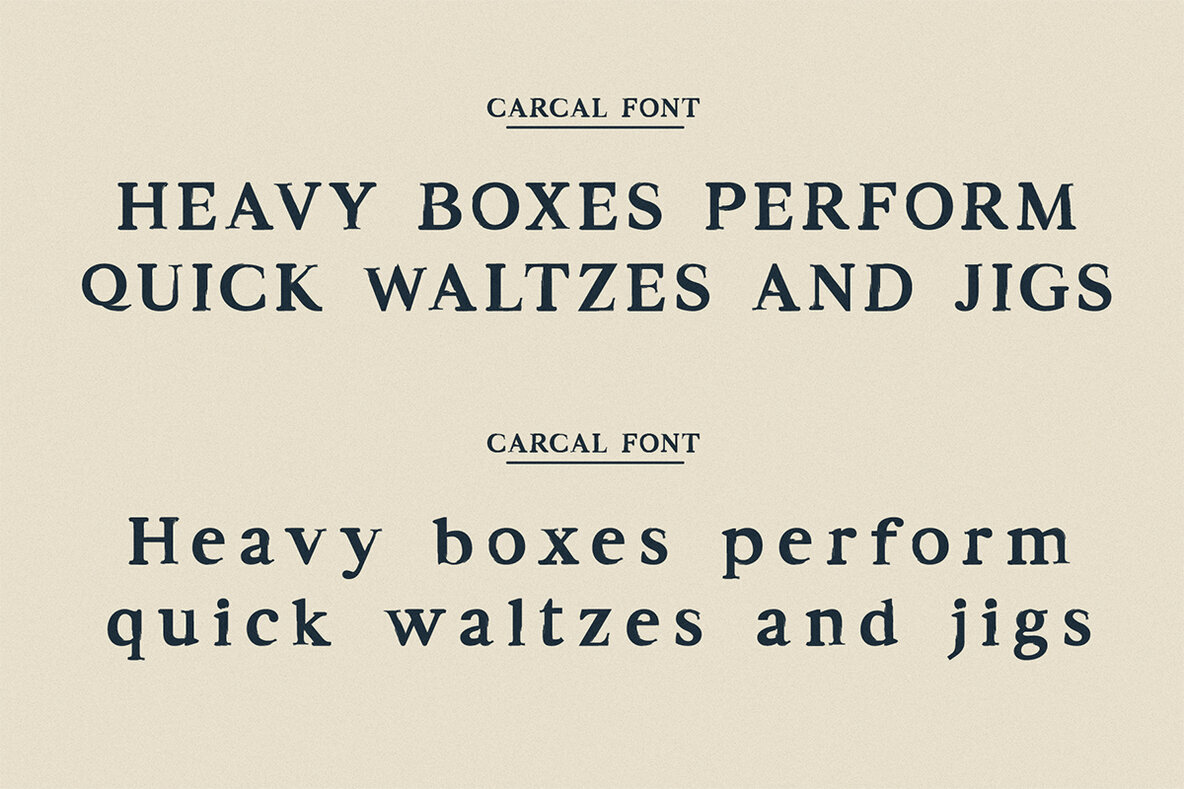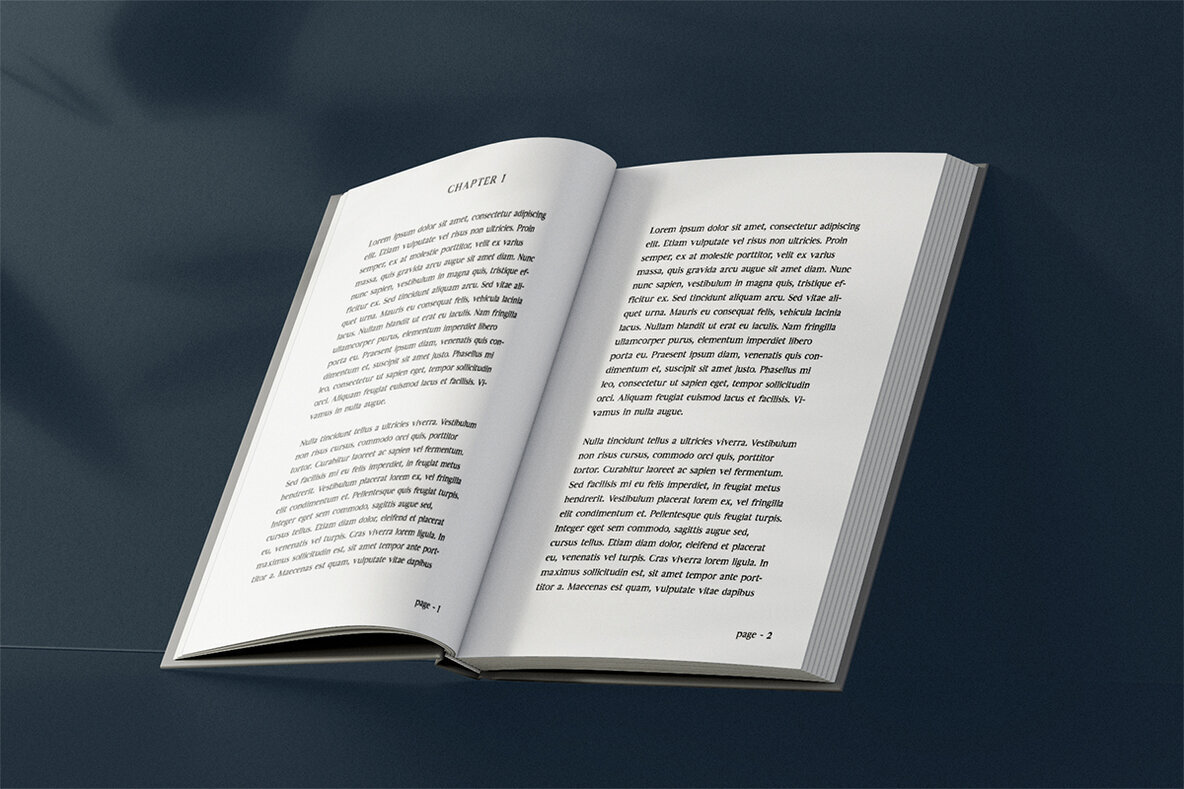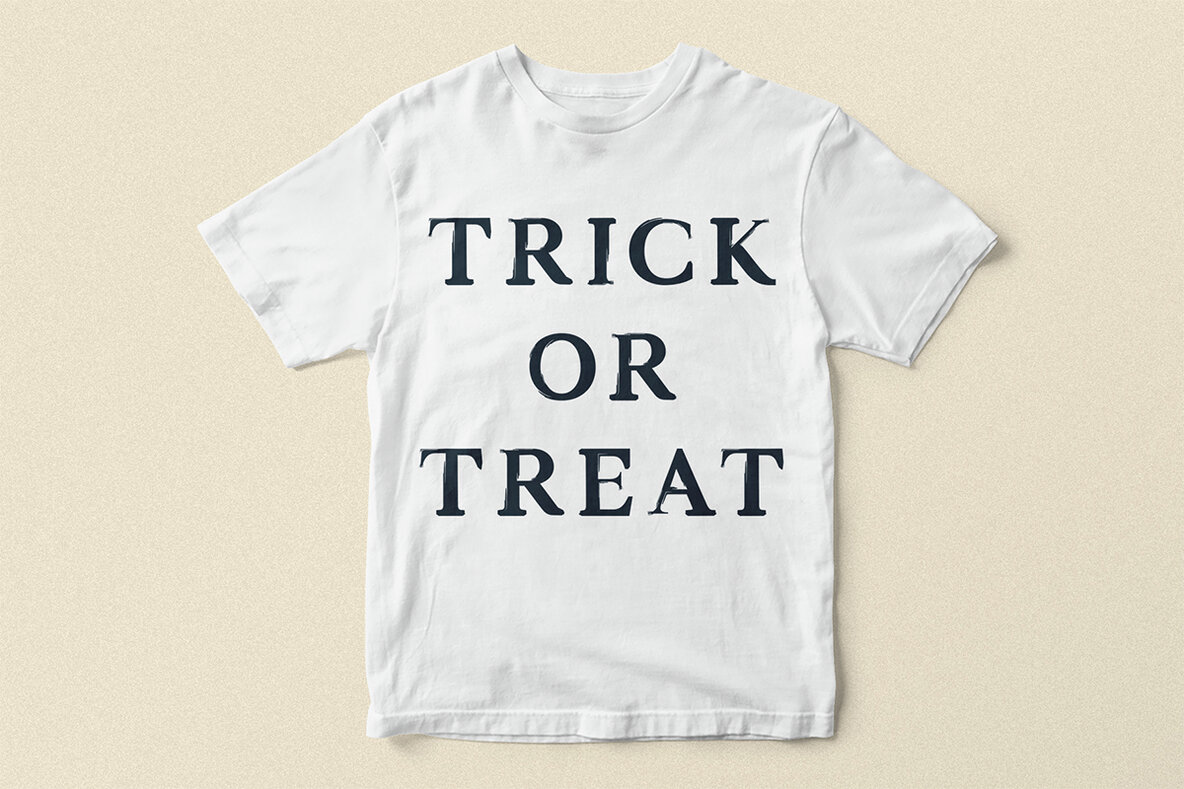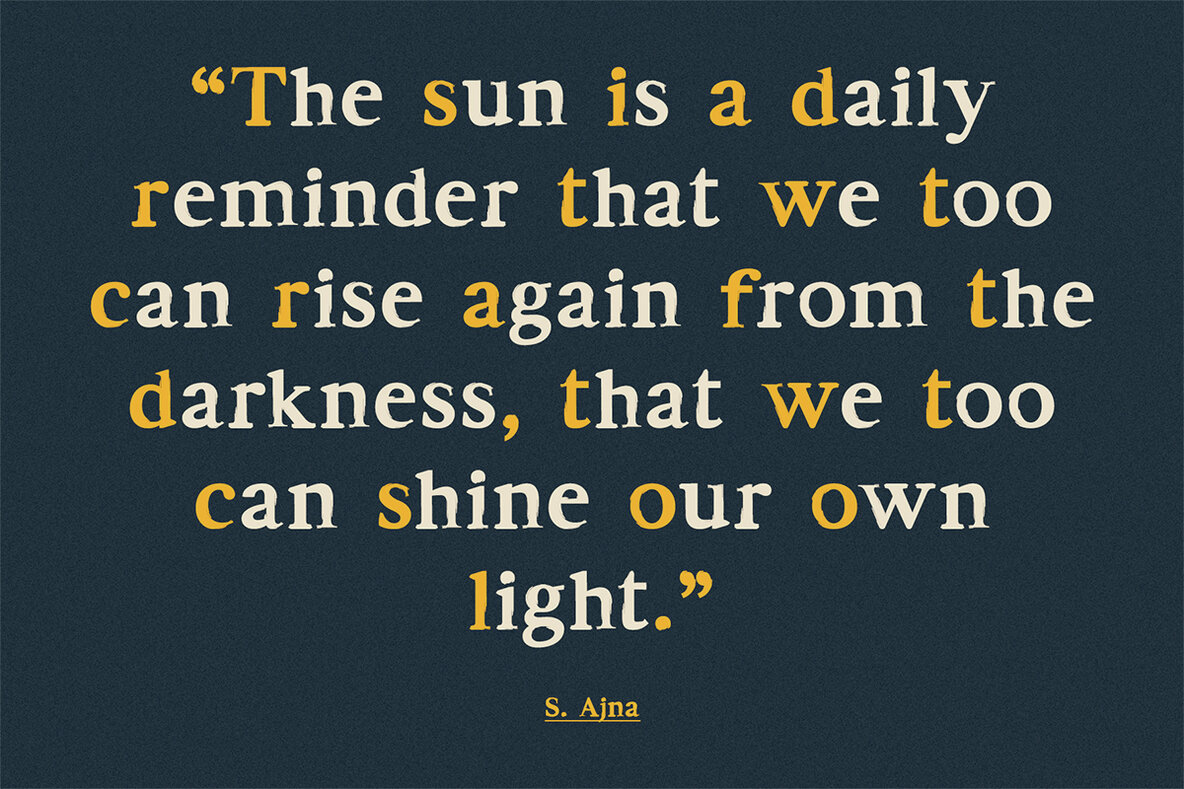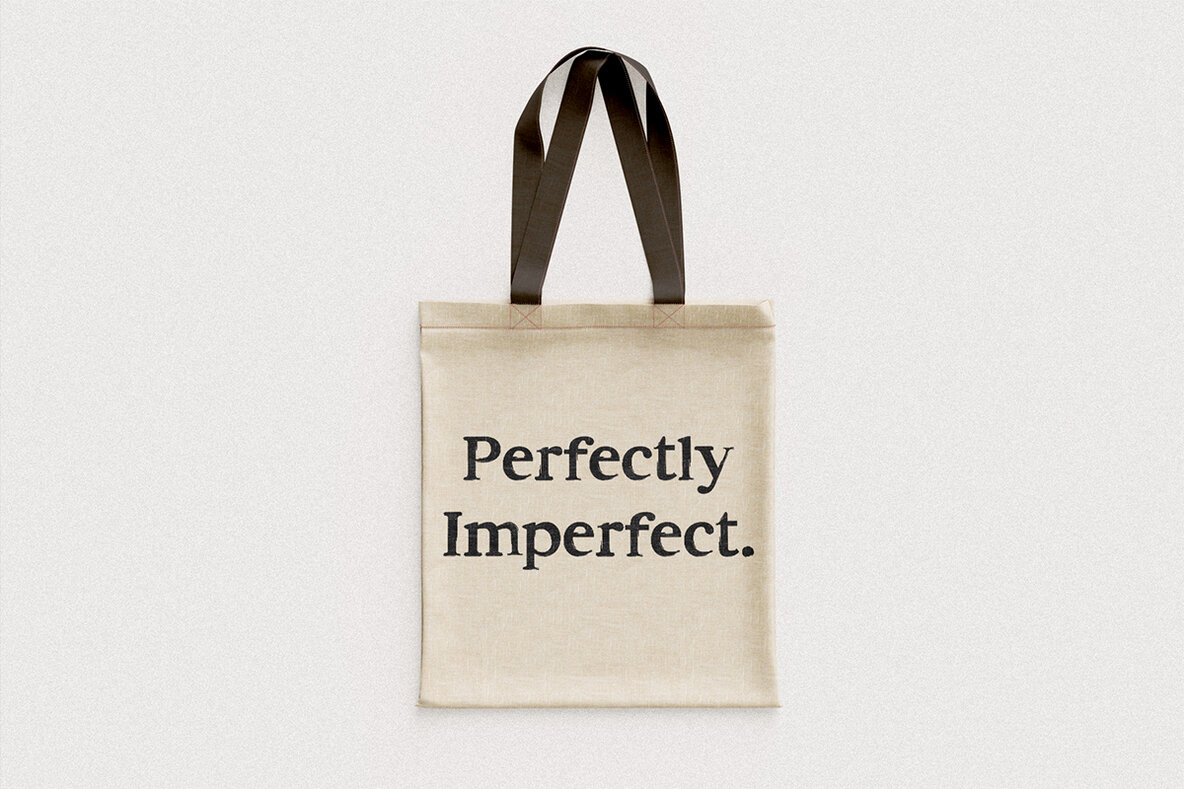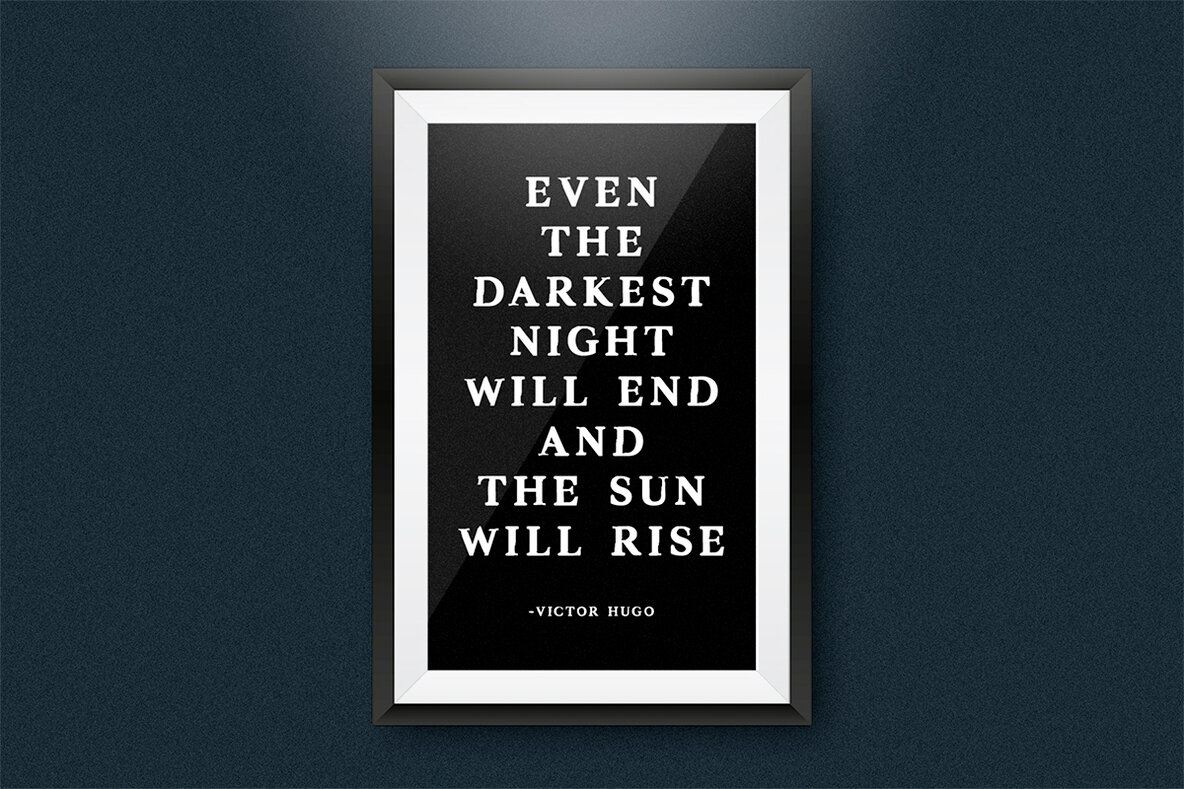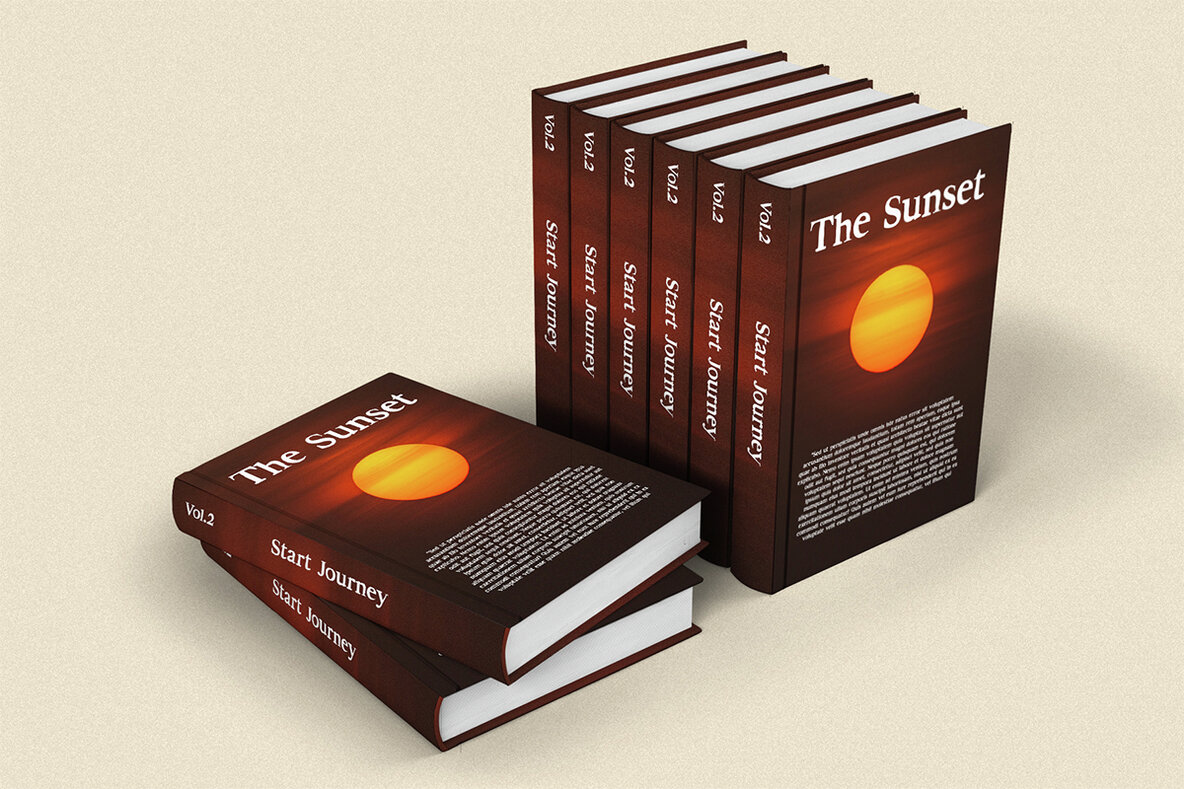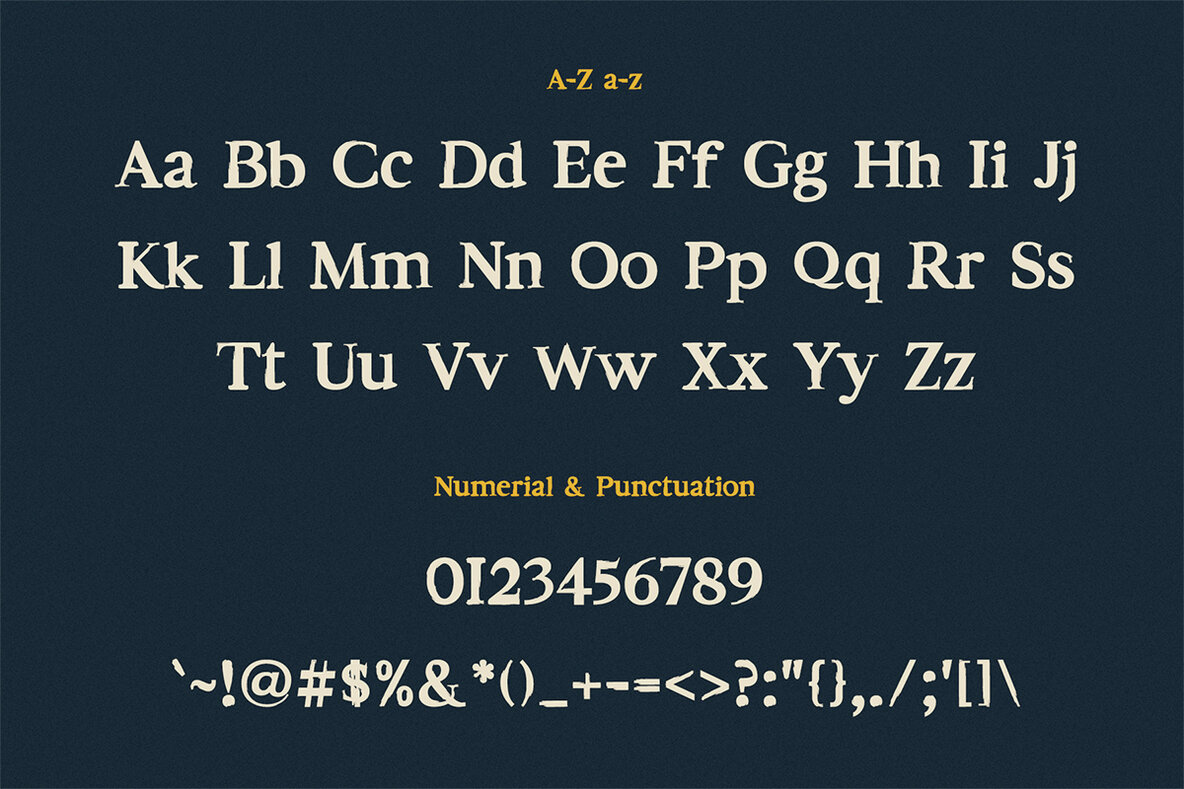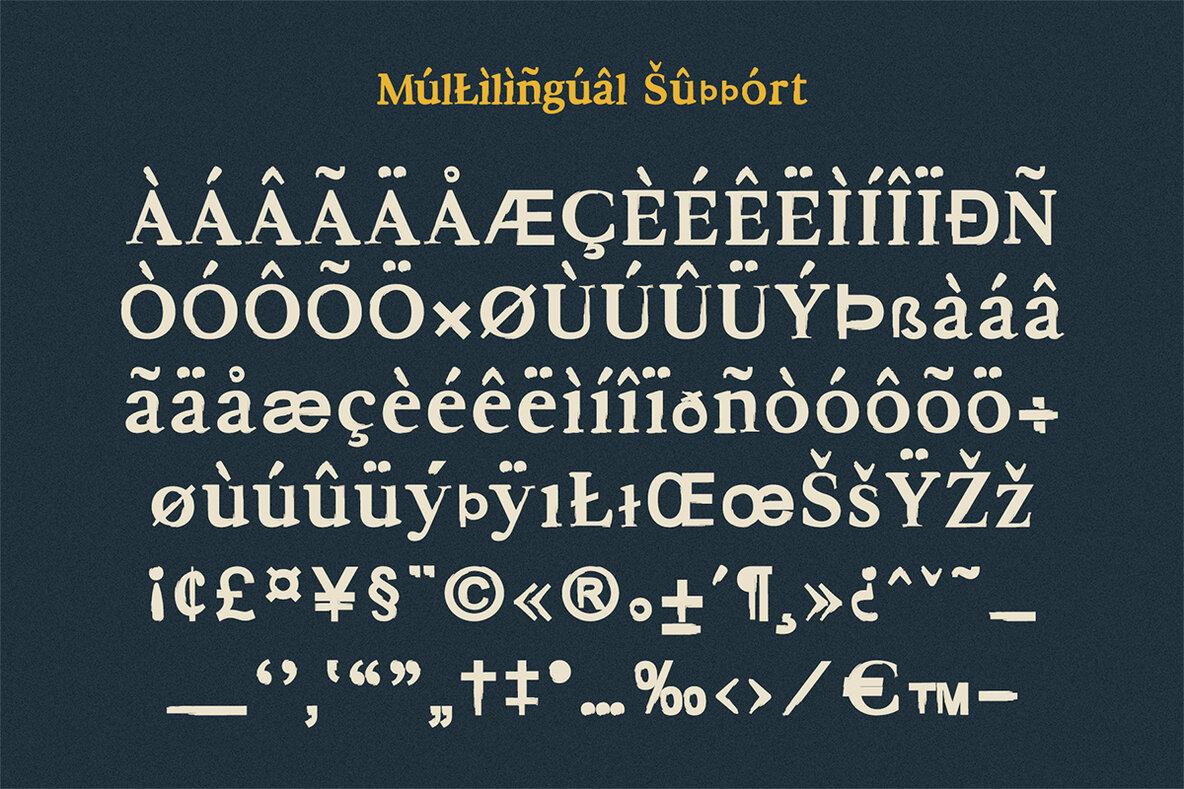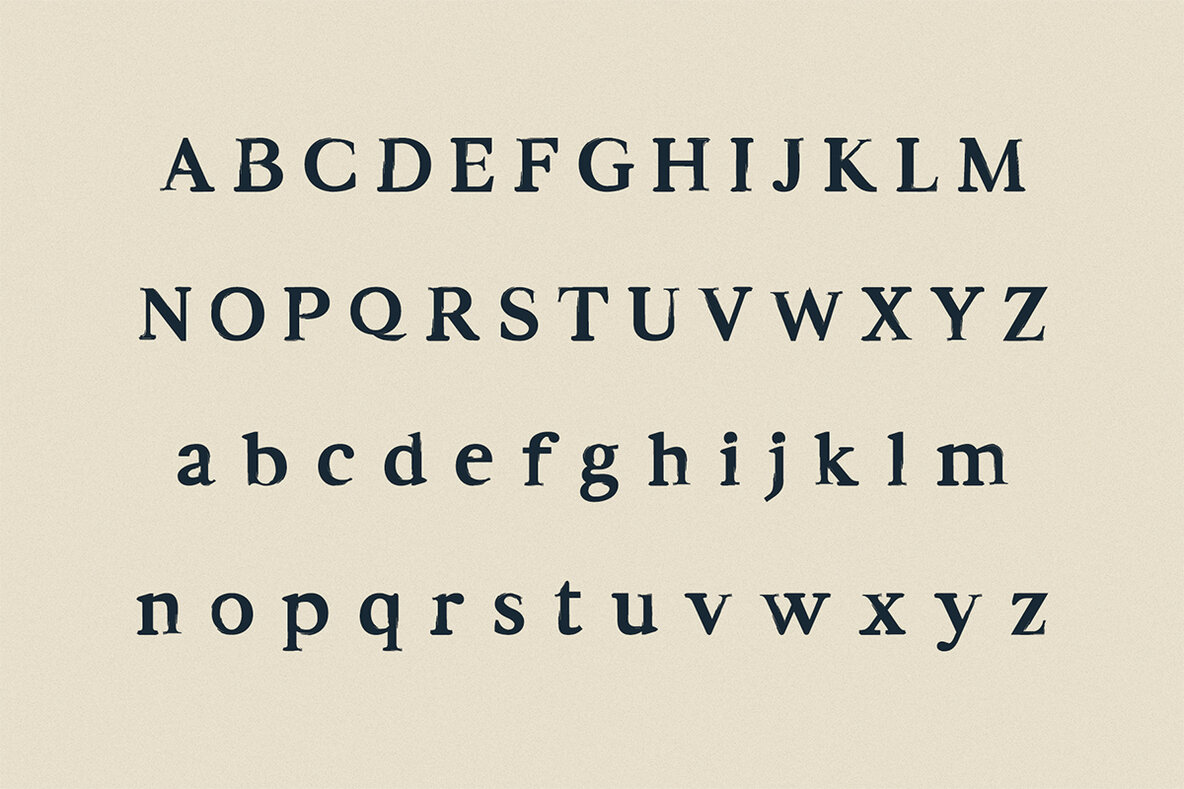
Carcal Font
Say hi to Carcal Brush Font, a charming, appealing and modern hand brush style font that will make you love its incredibly versatile style for your forthcoming projects! It contains uppercase letters, lowercase letters, numbers, punctuation, and symbols and supports multilingualism. Carcal font is excellent for various tasks such as packaging, presentations, logos, headlines, lettering, posters, branding, quotes, titles, magazines, headings, web layouts, advertising, invitations, packaging design, books, and almost nearly any creative design. Carcal Font Features: Supported Characters: